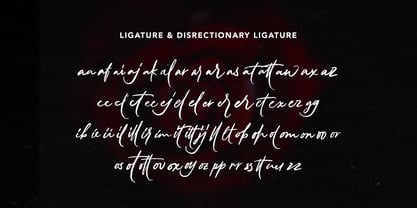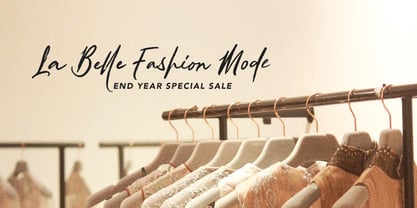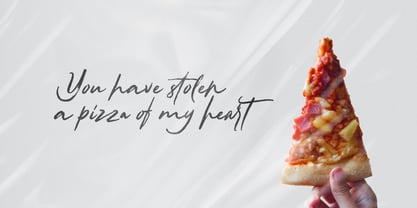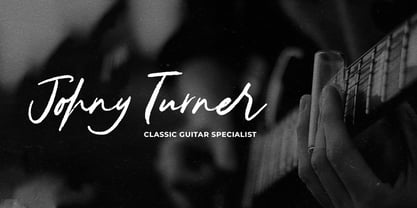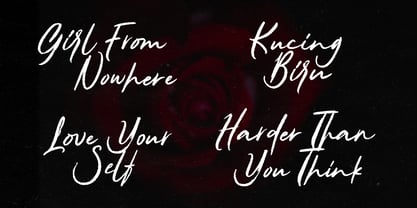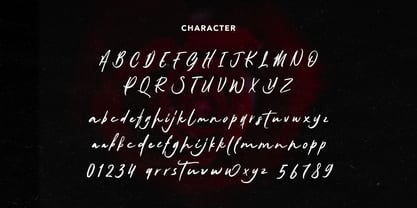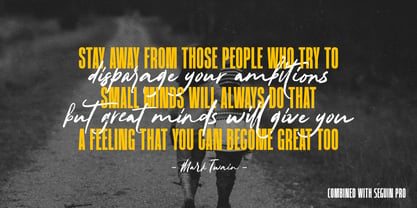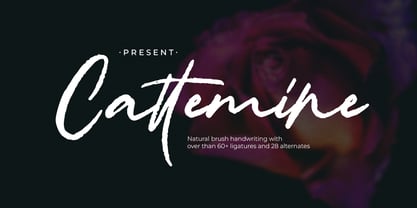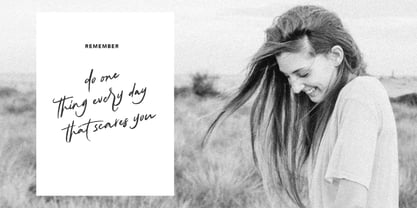
Cattemine
by Lostvoltype
The Cattemine Font Family was designed by Ryan Prasetya and published by Lostvoltype. Cattemine contains 1 styles. More about this family
Cattemine a captivating natural handwriting brush font that exudes the charm of authentic human touch. Designed to emulate the fluidity and spontaneity of brush strokes, this typeface combines elegance with a laid-back, artisanal feel. Each letter is meticulously crafted to mirror the organic irregularities and slight imperfections found in genuine hand-drawn text.
The font features sweeping curves and playful loops. Perfect for creative projects that demand a personal touch, Cattemine shines in everything from wedding invitations and artistic posters to casual branding and friendly correspondence.